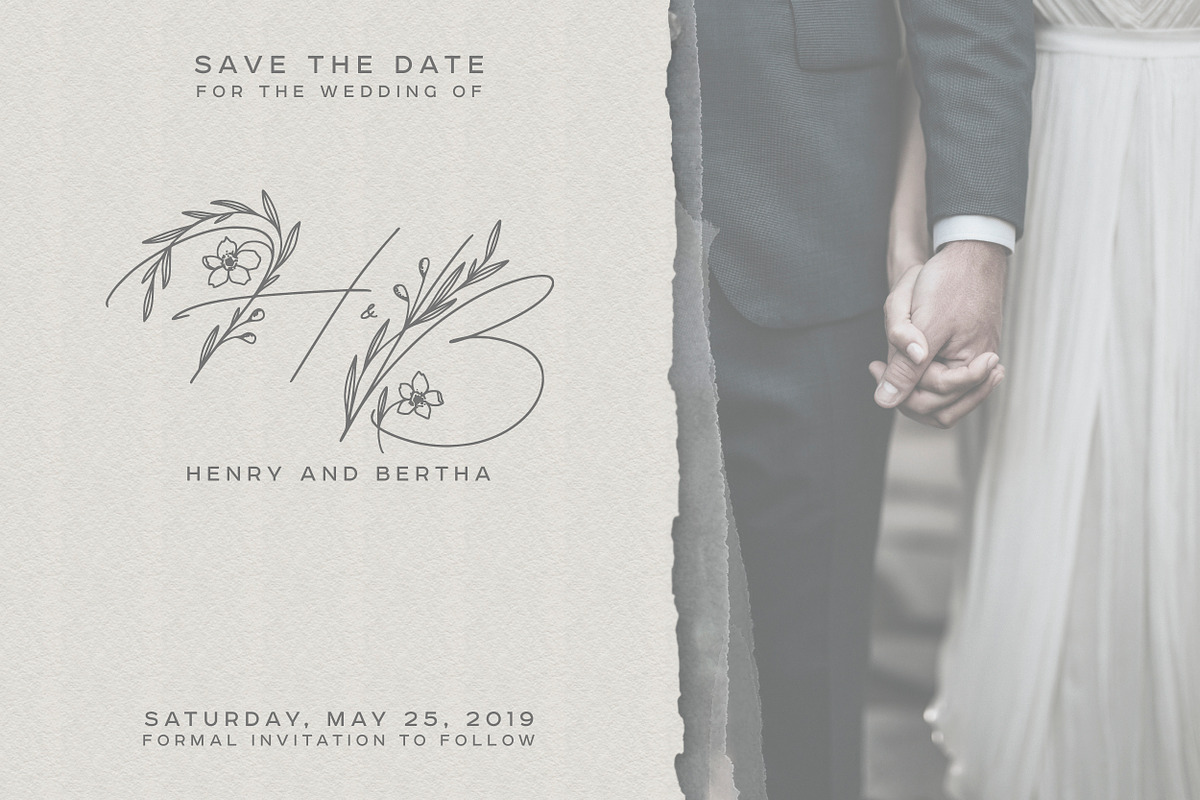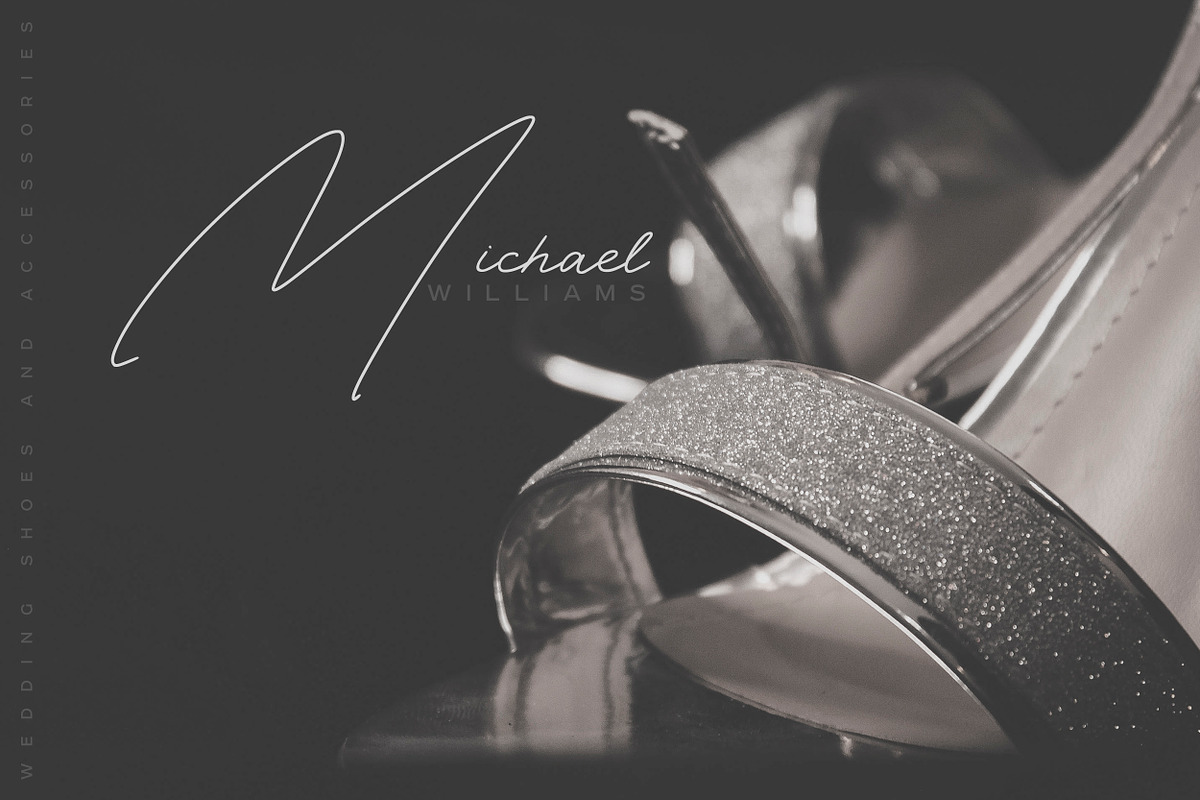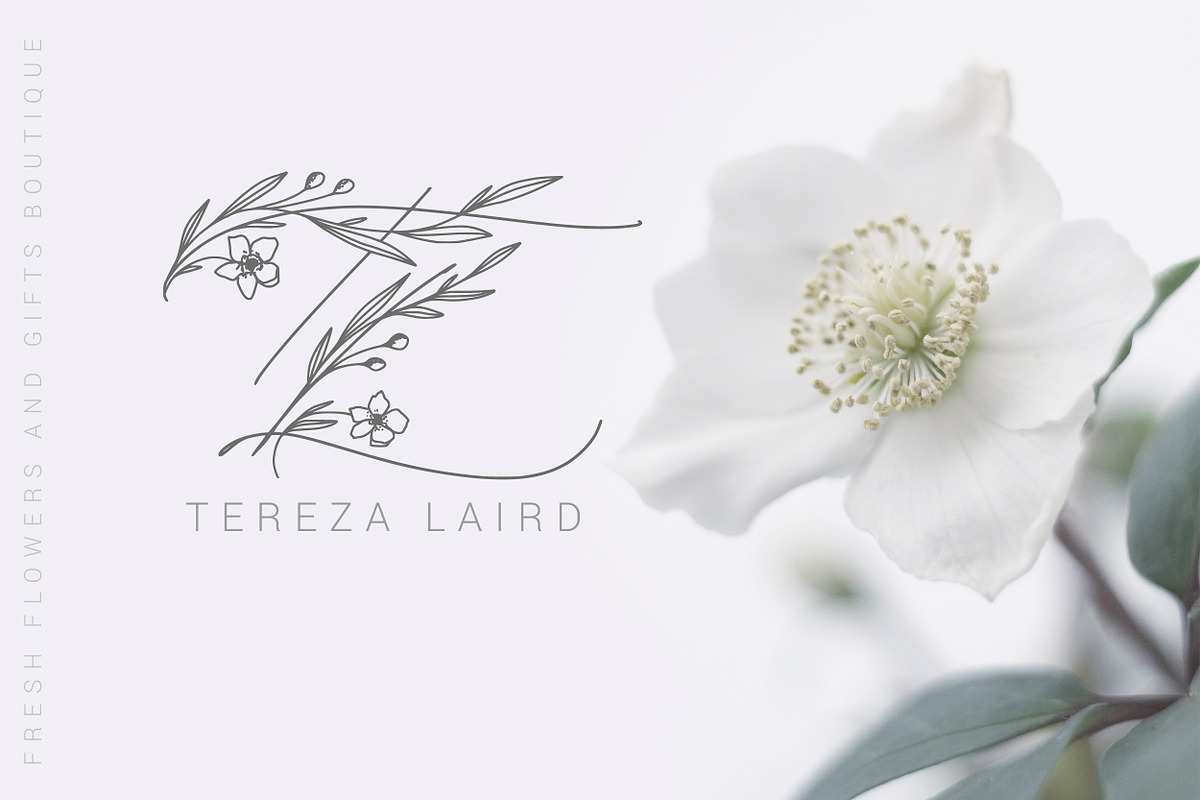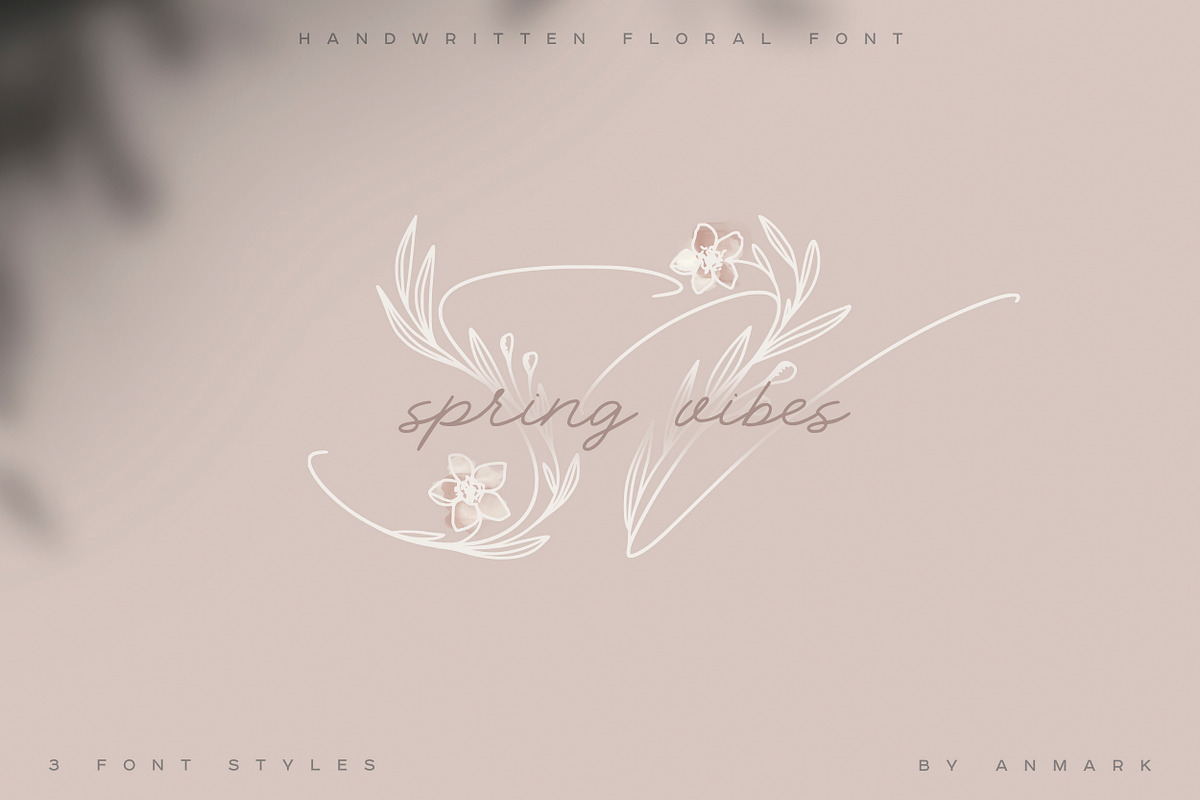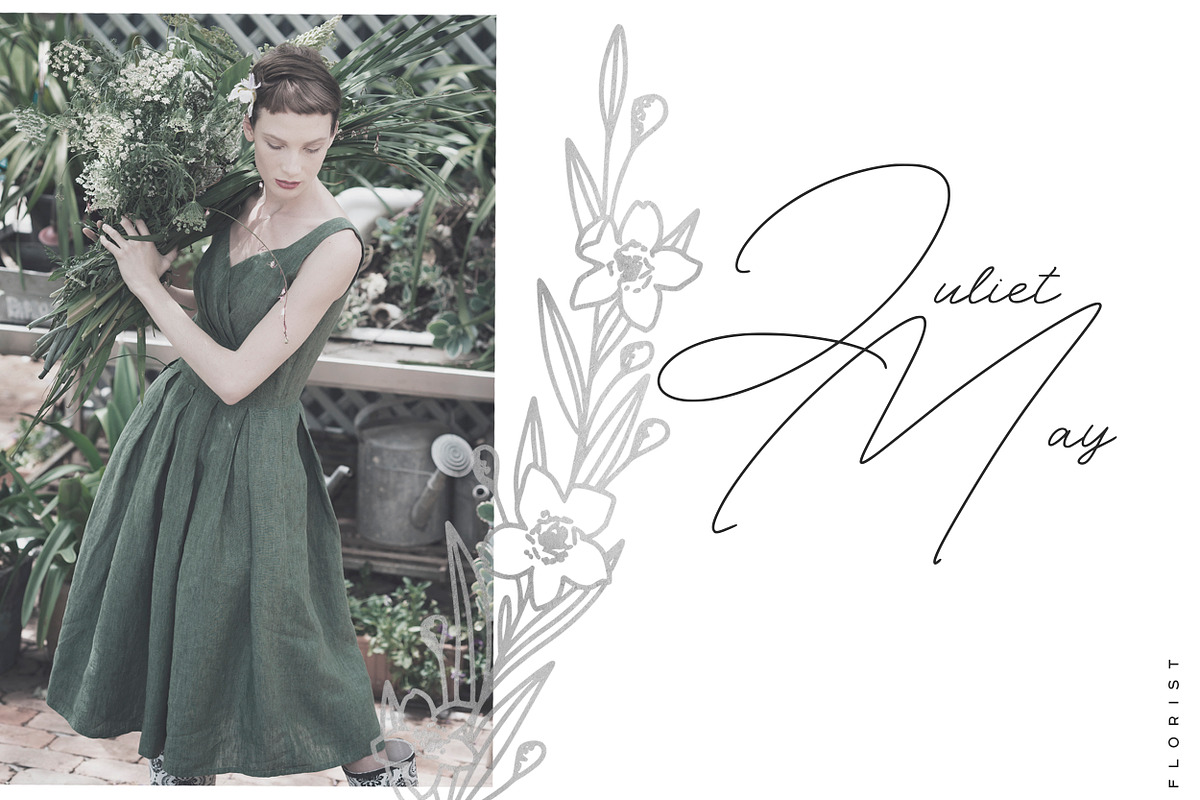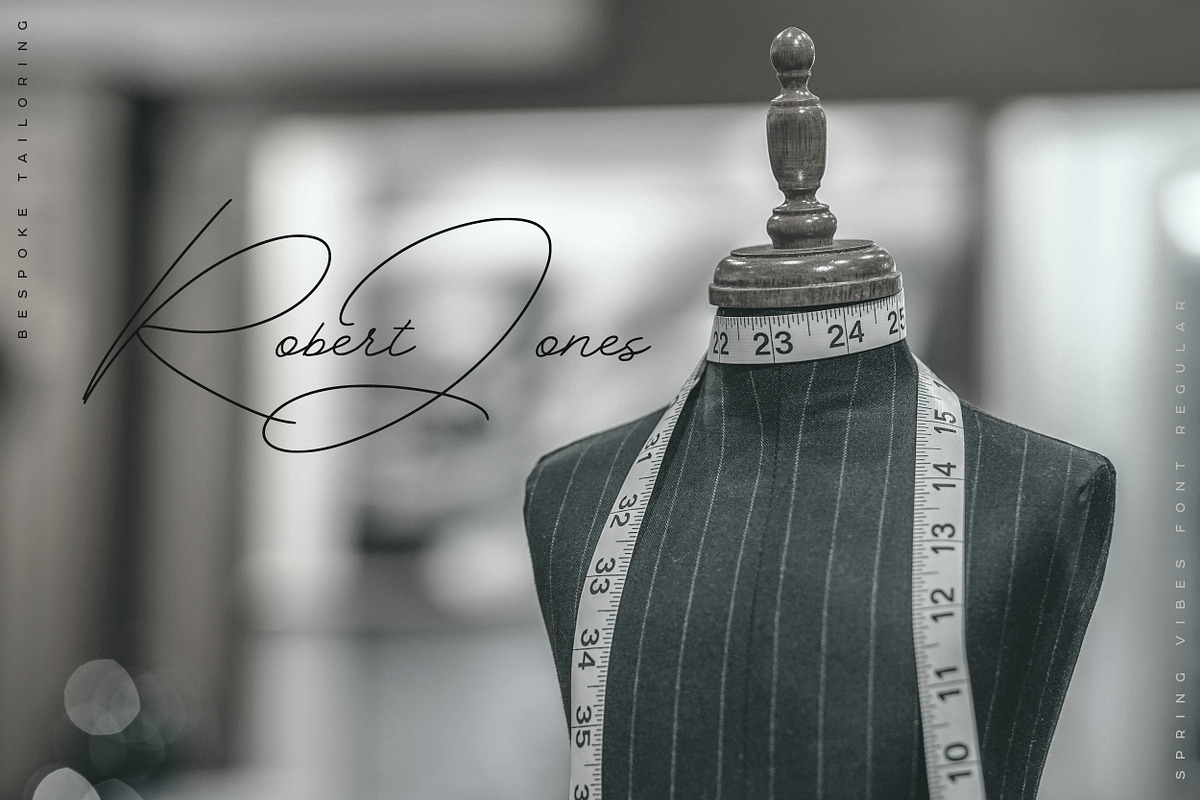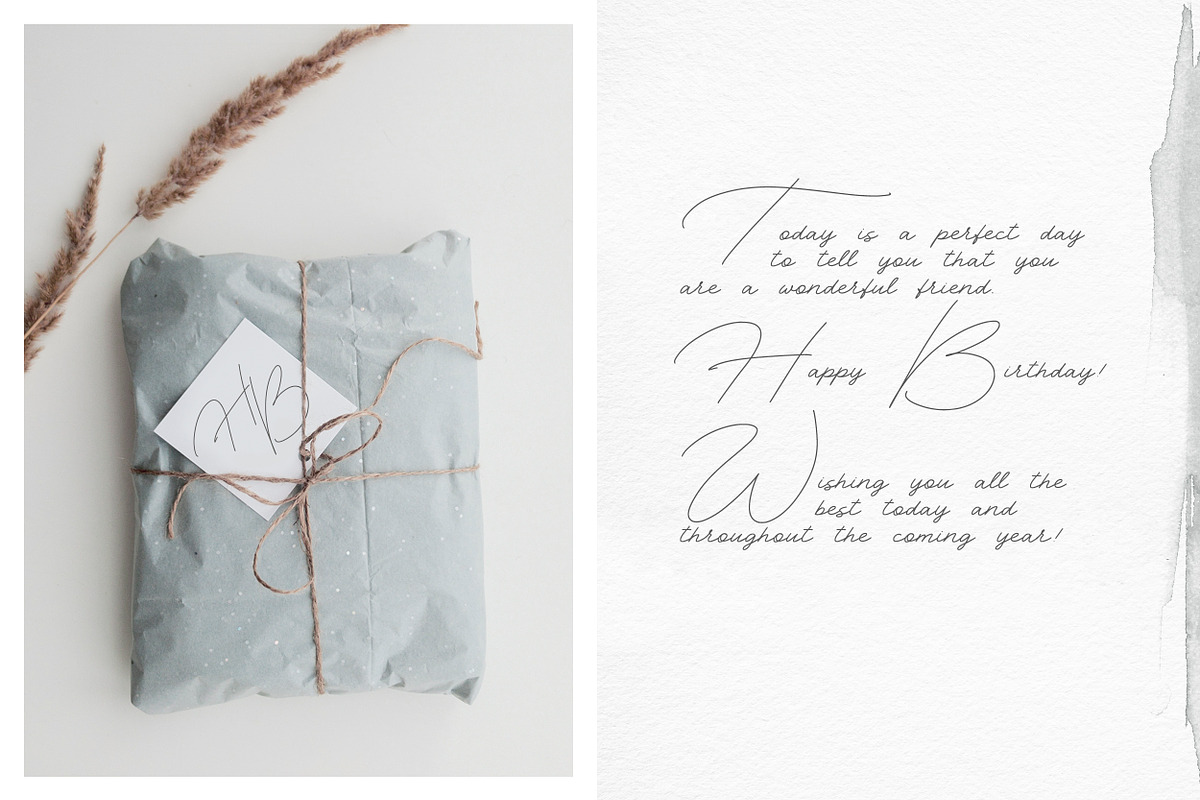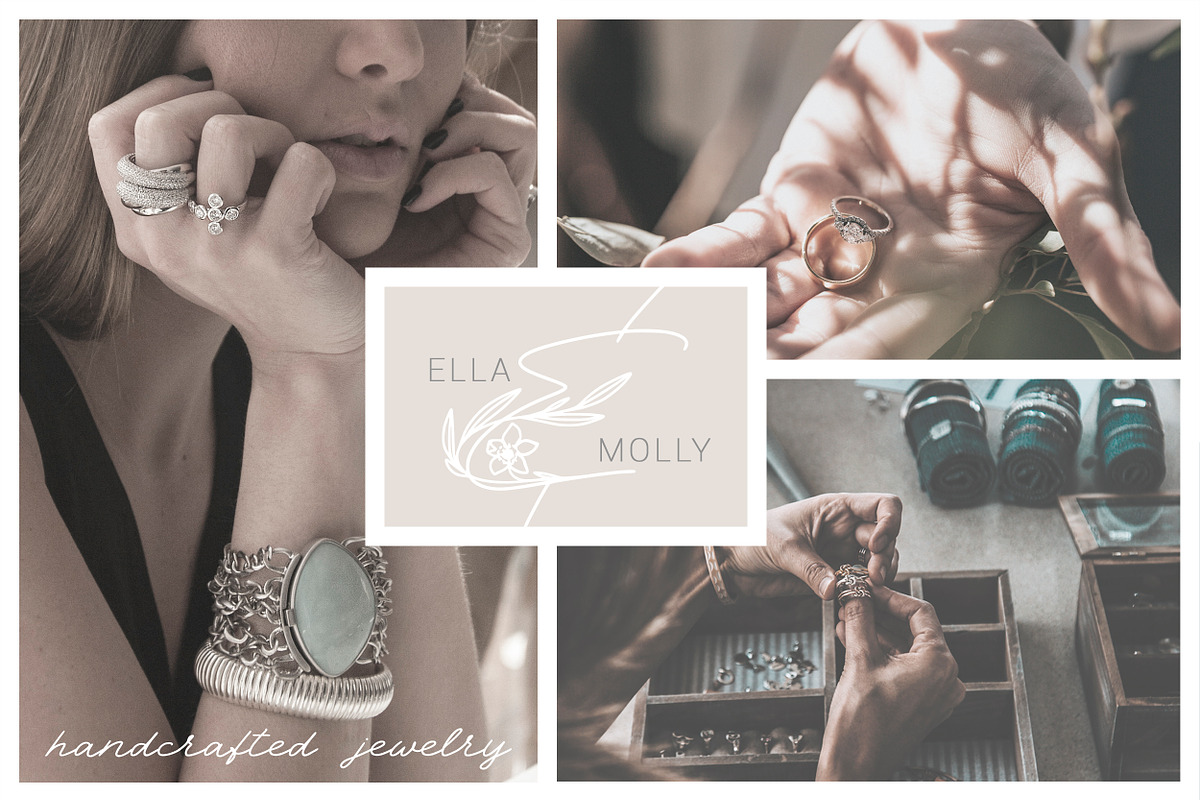
Spring Vibes. Floral Font + Frames
Hello! I’m pleased to introduce my handwritten floral font Spring Vibes.
Spring Vibes comes in three styles: Floral, Floral Light and Regular.
Spring Vibes Floral is an elegant, decorative, feminine handwritten font. Uppercase letters with flowers and leaves are ideal for your wedding monograms and logos. Use this font for wedding invitation, branding, packaging, magazines, florist shops, social media, restaurant menu, greeting cards, web header and many more.
Spring Vibes Floral Light. This is a lightweight version of the floral uppercase letters. This calligraphy font style is more light and gentle. It's perfect for wedding design projects, instagram, watermarks, titles, birthday invitation and other.
Spring Vibes Regular is an elegant script font. Use this modern font for flyer, banner, packaging, social media, signatures, quotes, letterpress address, jewelry, hotel business, signatures and more.
You will receive a nice BONUS - decorative botanical elements and wreaths. They are perfect for decoration of your monograms, logos, cosmetics packaging and much more.